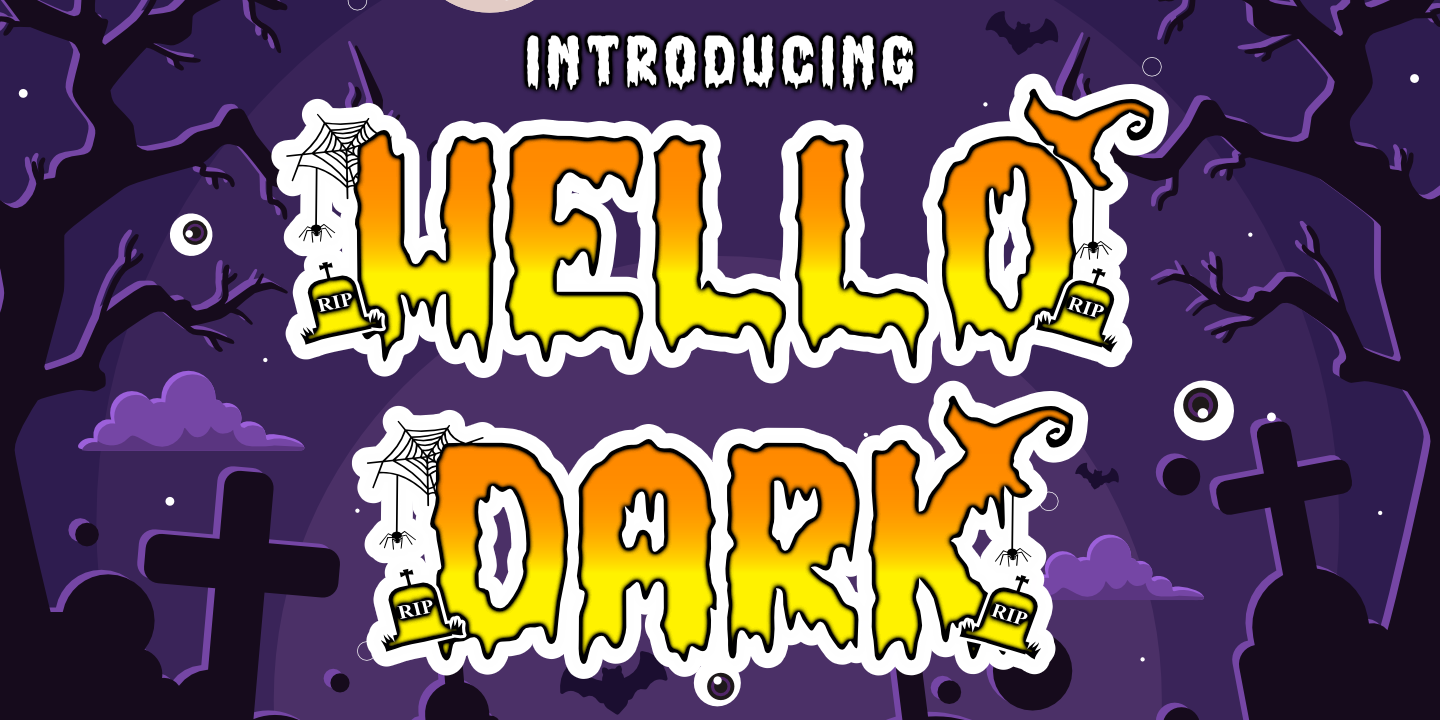
Hello Dark Font is ideal for gothic fashion branding, horror movie titles, mysterious marketing campaigns, dark art exhibitions, alternative lifestyle promotions, underground music branding, gothic architecture materials, shadowy creative projects, macabre entertainment marketing, and atmospheric design applications. This enigmatic typeface excels in environments where mystery, darkness, and alternative aesthetics are essential for creating compelling atmospheric brand experiences.
What makes Hello Dark Font exciting is its masterful embodiment of shadowy elegance and mysterious sophistication through letterforms that seem to emerge from darkness with haunting beauty. The font features dramatic characteristics with subtle gothic influences that convey mystery, depth, and the alluring power of shadows and darkness. This atmospheric aesthetic makes it perfect for brands seeking to communicate alternative sophistication, mysterious allure, and the captivating beauty found in darker creative expressions.
Hello Dark Font family includes Light, Regular, Medium, Bold, Shadow, Gothic, Mysterious, and Midnight variants. Each style maintains the font's distinctive dark character while offering different levels of atmospheric intensity and mysterious expression, enabling designers to create authentic shadow-inspired compositions that celebrate alternative beauty and gothic sophistication across various dark applications.
The Hello Dark Font Free Download provides designers with access to a premium darkness-inspired typeface that embodies the spirit of gothic elegance and mysterious sophistication. This font's atmospheric aesthetic and enigmatic qualities make it particularly valuable for alternative brands, gothic organizations, and atmospheric businesses seeking to establish genuine connections with audiences who appreciate dark beauty and mysterious aesthetics.
Alternative design professionals appreciate the font's ability to instantly communicate mystery, sophistication, and gothic authenticity. The letterforms' shadowy characteristics and dark-inspired details create atmospheric connections that bright, conventional fonts cannot achieve, making it essential for projects requiring distinctive gothic personality and alternative appeal.
When working with Hello Dark Font, designers can create compelling visual narratives that resonate with gothic enthusiasts and alternative culture communities. The font's mysterious character makes it especially effective for brands in alternative fashion, gothic art, dark entertainment, and atmospheric services where authentic dark credibility and mysterious sophistication are crucial for alternative positioning.
For digital applications, Hello Dark Font maintains its distinctive shadowy qualities across different platforms while ensuring readability in modern gothic contexts. Its optimized character spacing preserves the mysterious flow essential for authentic dark appeal.
Gothic design agencies consistently select Hello Dark Font for projects requiring genuine alternative appeal and dark authenticity, where conventional typography cannot capture the desired mystery and atmospheric sophistication that defines contemporary gothic culture and alternative aesthetic movements.